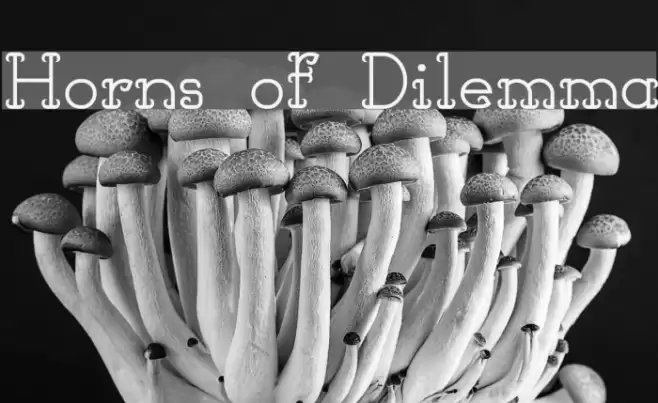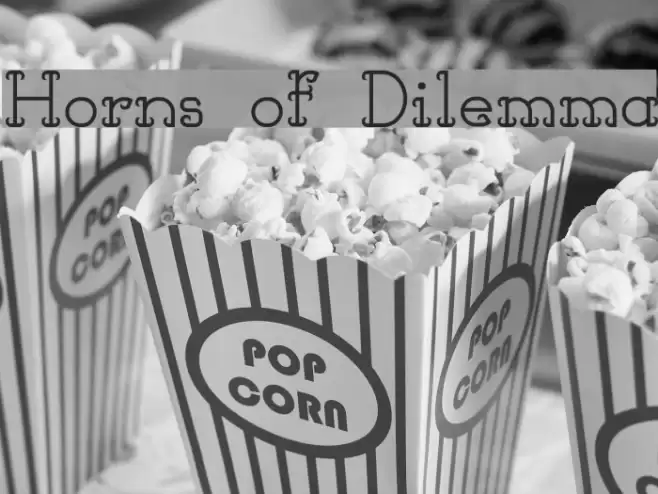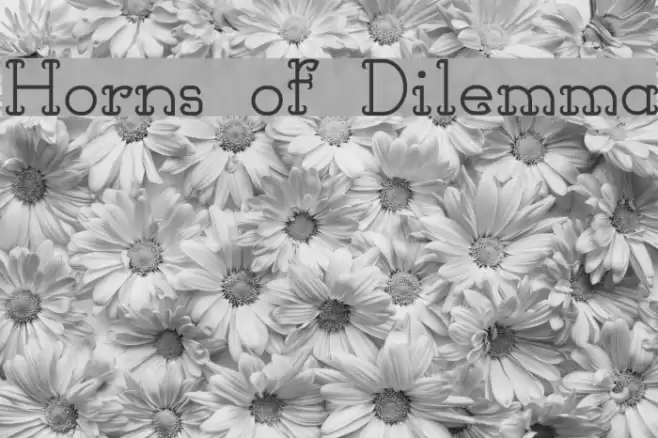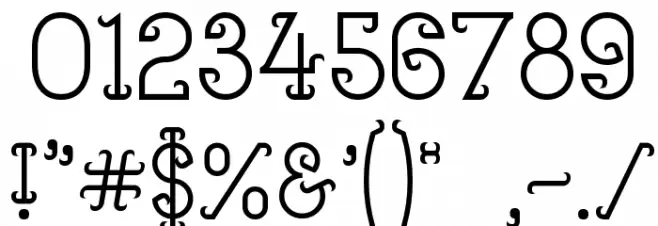
Horns of Dilemma Font
Horns of Dilemma Description
This font features a playful and whimsical design, characterized by its unique decorative elements at the ends of each letter. The strokes are consistent in width, giving it a uniform appearance, while the added embellishments provide a sense of fun and creativity. The uppercase letters are bold and prominent, making them suitable for attention-grabbing headlines. The lowercase letters maintain the same decorative style, ensuring cohesion throughout the text. Numbers and special characters are designed with the same playful flair, making this font versatile for various uses.
A whimsical and decorative font with playful embellishments on each character from Farsi fonts.
- Proposed Projects: Ideal for children's books, playful branding, creative posters, and invitations.
- Overall Style: Playful, Whimsical, Decorative